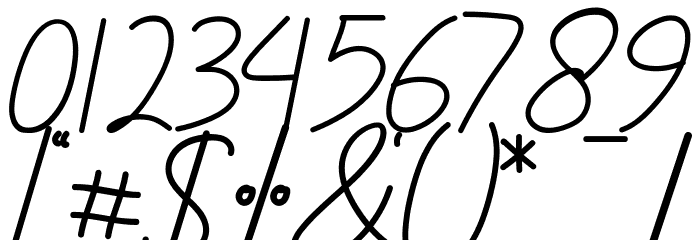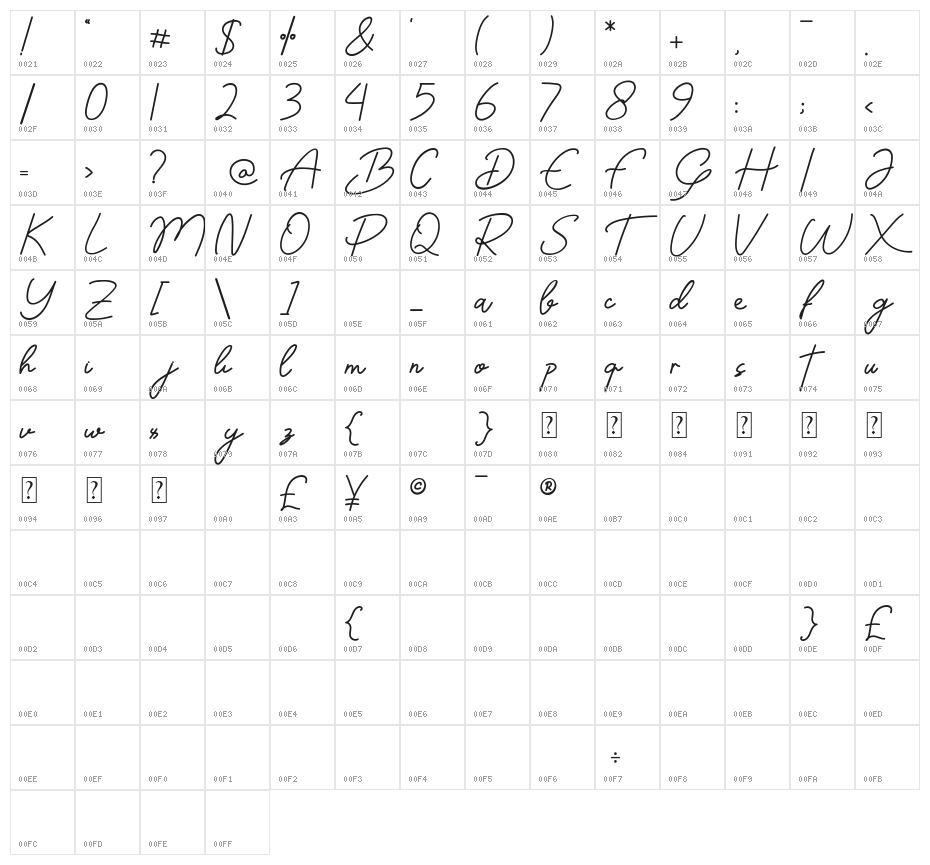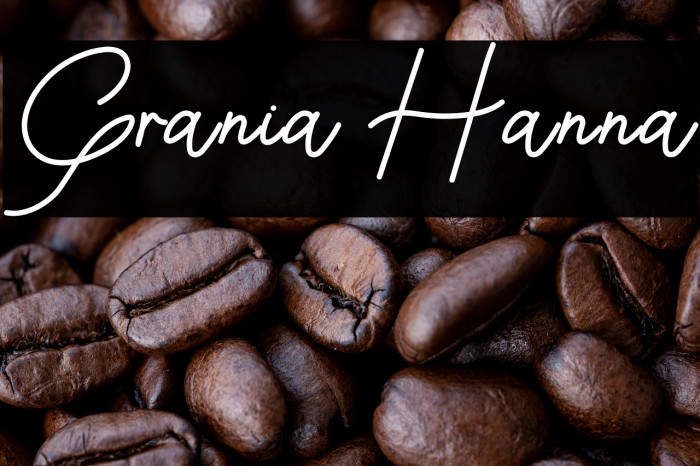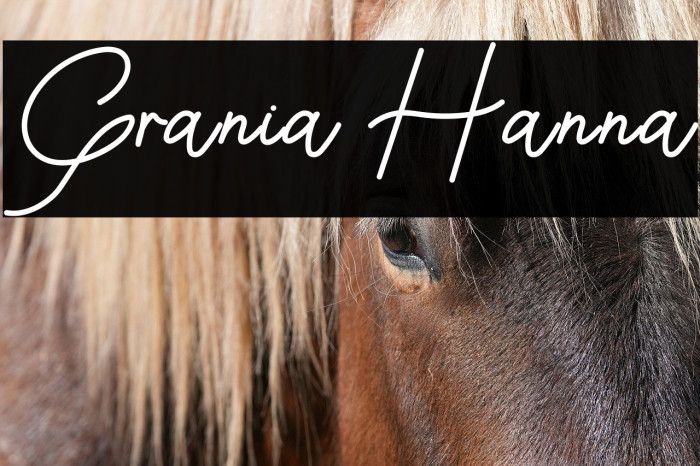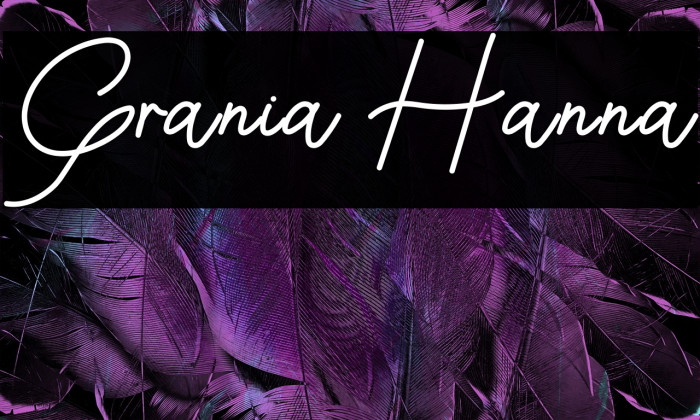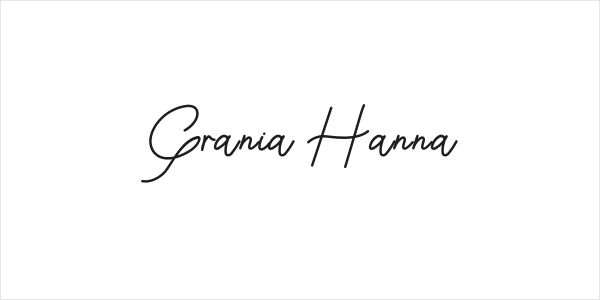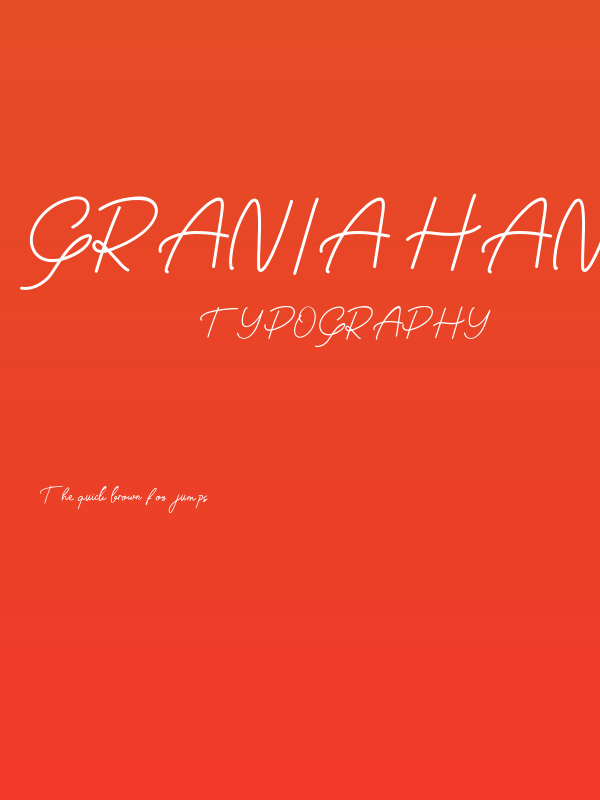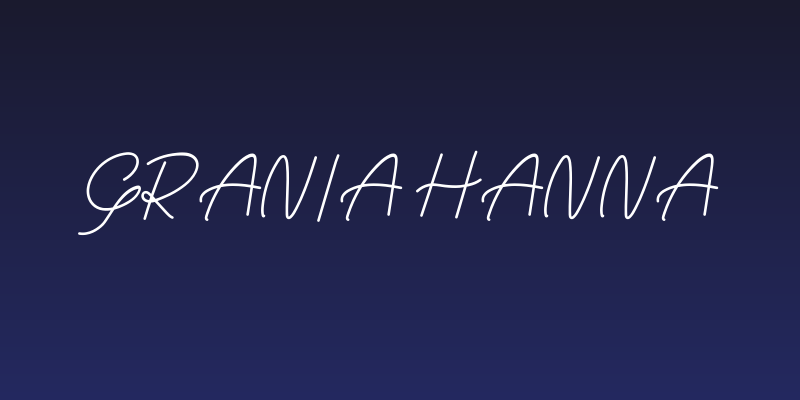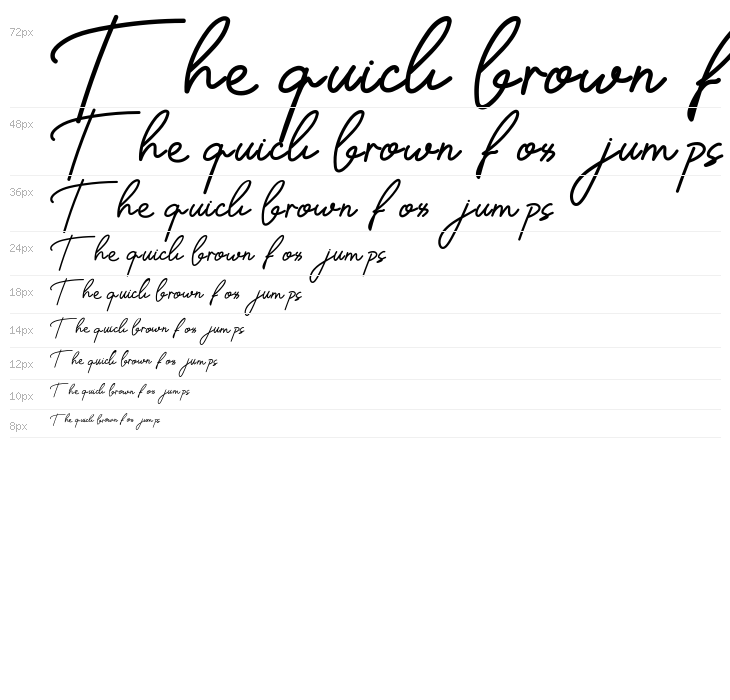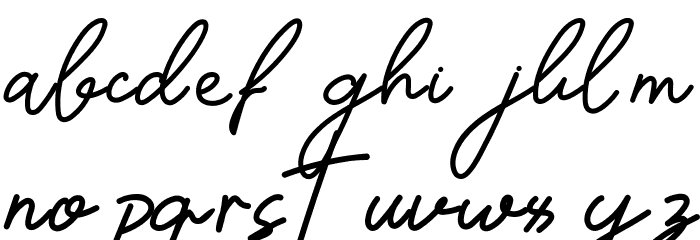
Grania Hanna Font
Grania Hanna Description
This font features a fluid, cursive style that mimics natural handwriting. The uppercase letters are elegantly connected, creating a sense of continuity and flow. The lowercase letters maintain a consistent slant and are slightly more compact, enhancing readability while preserving the handwritten aesthetic. Numbers and special characters are crafted with the same attention to detail, ensuring a cohesive look across all elements. The strokes are smooth and consistent, with a medium contrast that adds to the font's legibility and charm. This font is ideal for projects that require a personal touch, such as invitations, greeting cards, and branding materials.
| Overall Style | Handwritten |
| Proposed Projects | Ideal for invitations, greeting cards, personal branding, and creative projects requiring a handwritten touch. |